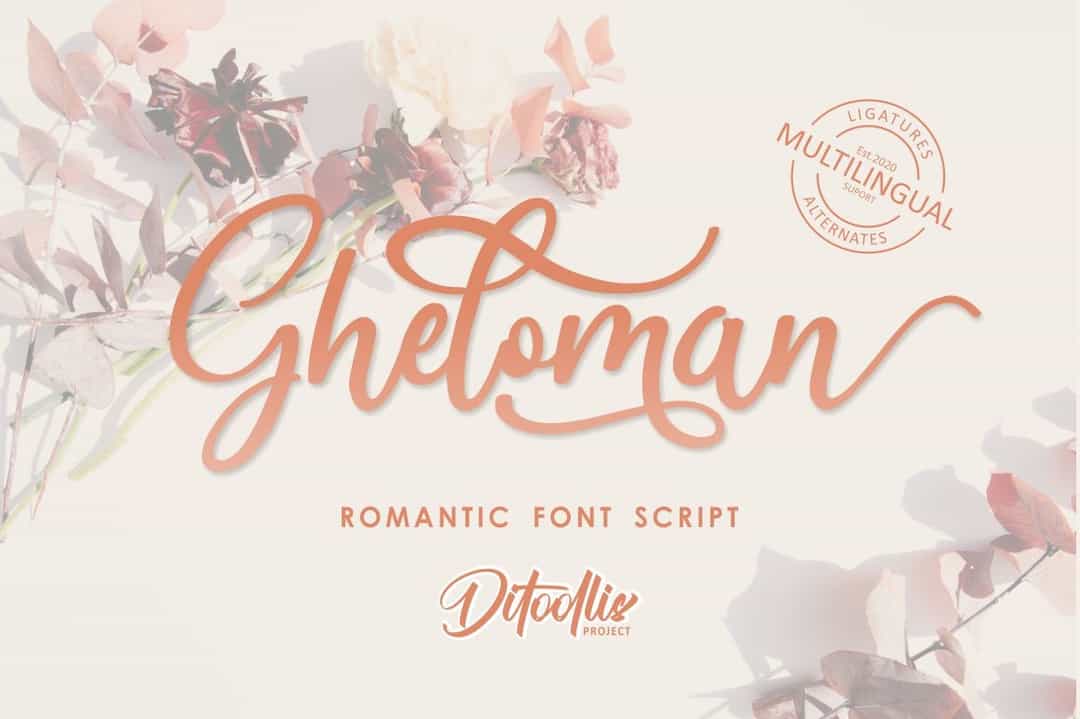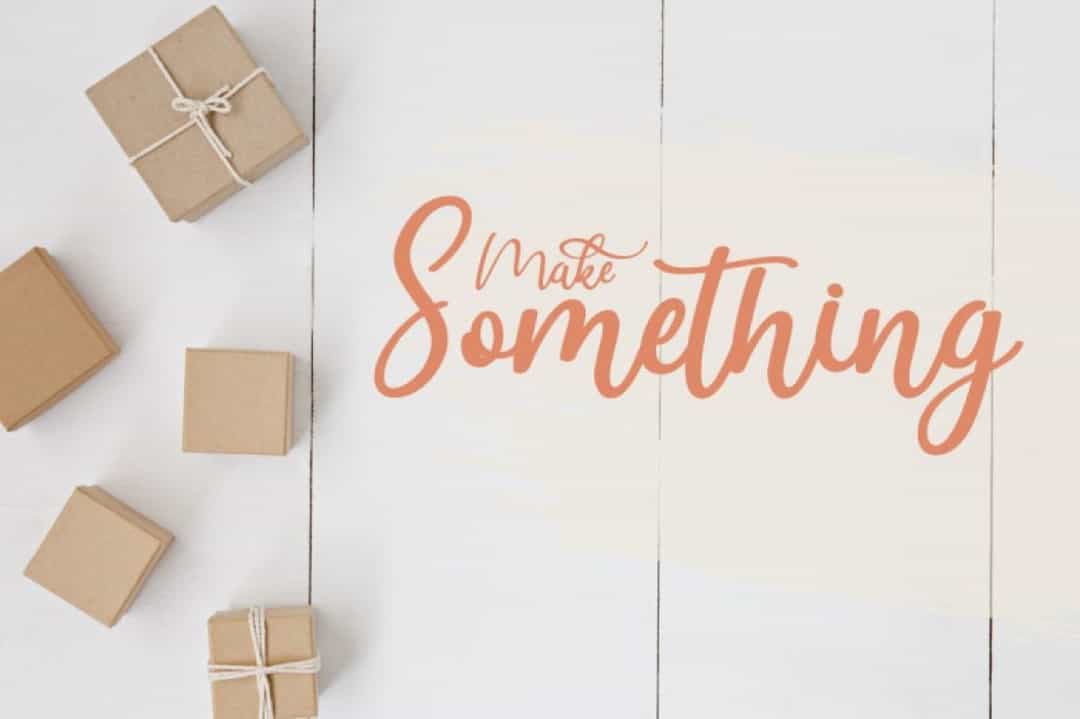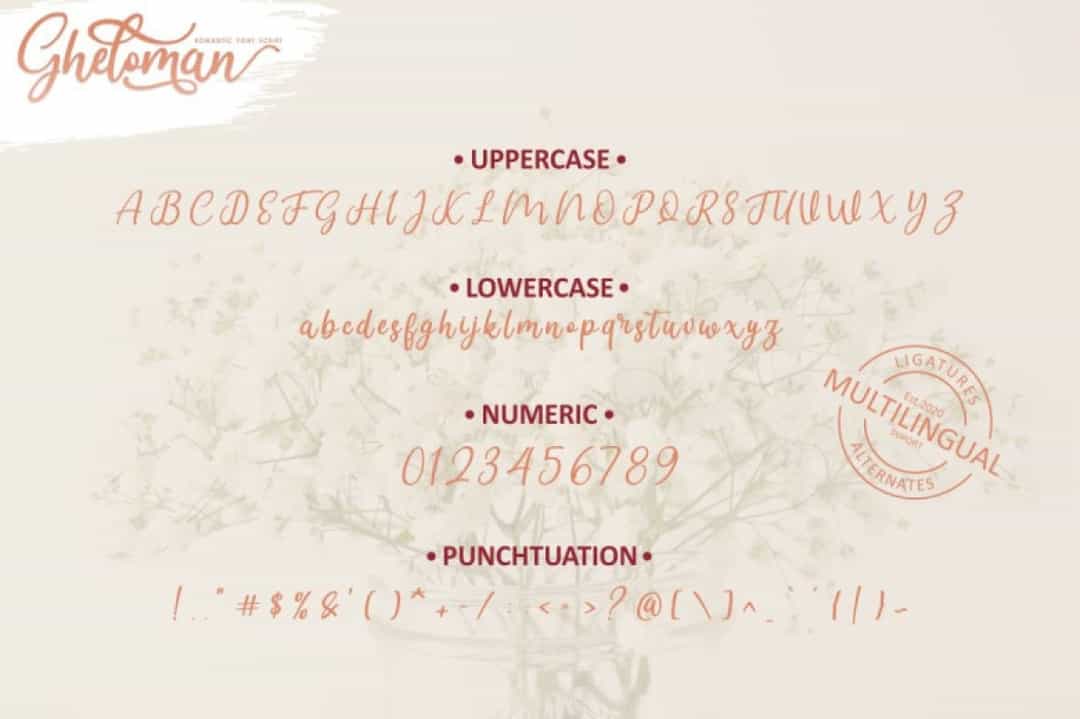
Gheloman is an exquisite and romantic calligraphy script designed with care to perfection! Boasting beautiful flowing characters that add an elegant and romantic look to any project! PUA encoded, all characters and swashes can be used easily!